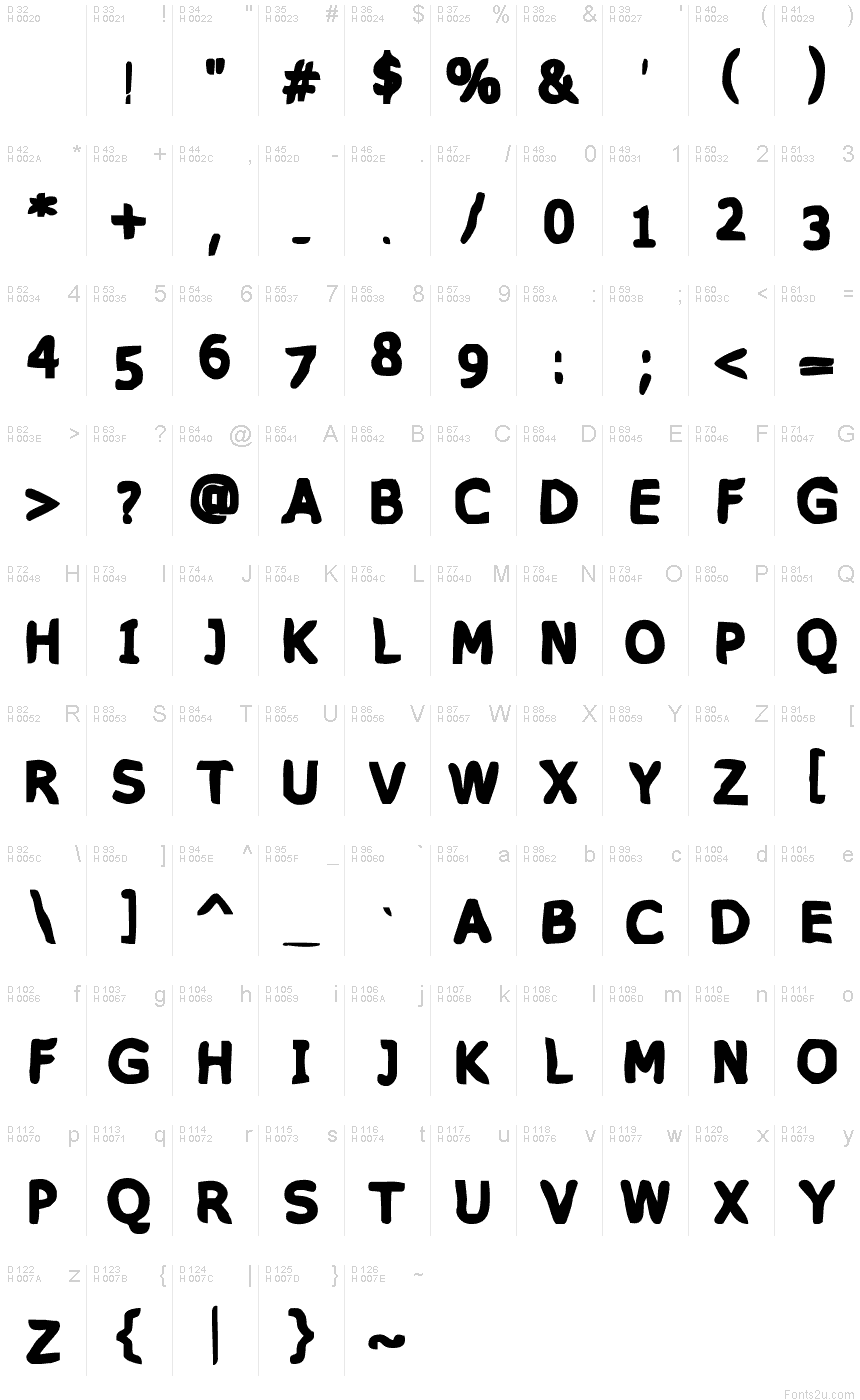
VTC PizzOff Fatty
VTC PizzOff Fatty, from Vigilante TypeFace Corporation, is a free distorted display font with chunky caps that look warped by heat and cut with a blunt knife. The letters lean into uneven curves, swollen corners, and abrupt flat edges, giving the whole font a scrappy late-90s zine and skate-flyer attitude.
It fits posters, record sleeves, sticker graphics, club nights, and short logo work where the free font can do the talking in just a few letters. Use it for cover lines, title cards, or loud headers when you want something thick and unruly, because the caps feel compressed and stretched at the same time.